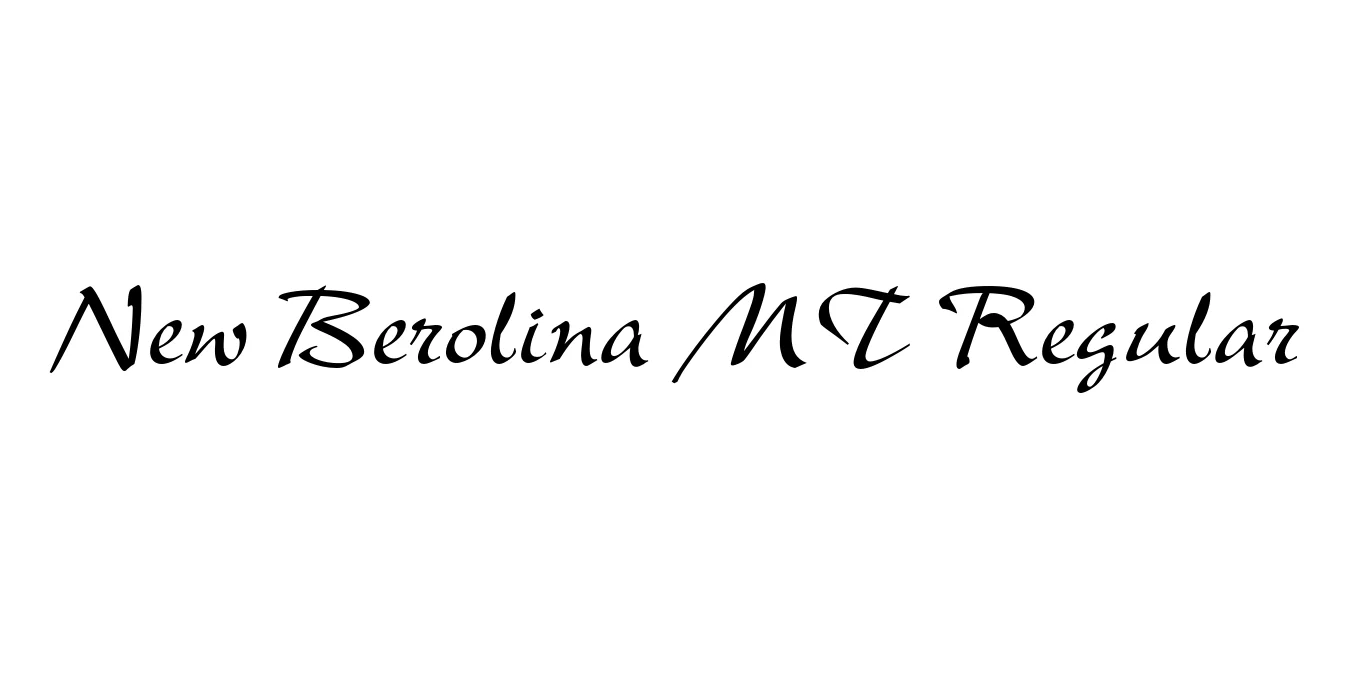
New Berolina MT Regular
Designed by Monotype Design Studio
| Category | Script / Calligraphic |
| Designer | Monotype Design Studio |
New Berolina MT Regular is an elegant calligraphic script typeface that embodies the fluid grace of manual handwriting. Originally developed by the Monotype Design Studio, this font features rhythmic, sweeping strokes and a sophisticated cursive structure that evokes a sense of timelessness and prestige. Its design balances the intricacy of traditional calligraphy with the clarity required for modern typesetting, making it a staple for high-end decorative work.
Throughout its history, New Berolina has been recognized for its ability to add a personalized, human touch to formal compositions. Unlike more rigid script fonts, its organic flow and moderate stroke contrast provide excellent legibility for a script face. It is most commonly associated with formal announcements, luxury branding, and celebratory materials where an atmosphere of refinement and classic beauty is desired.
New Berolina MT Regular Best Uses
Perfect for invitations, save-the-dates, and place cards due to its romantic and formal aesthetic.
Ideal for high-end luxury brands, boutique logos, and sophisticated packaging design.
Widely used for diplomas, awards, and formal recognition documents.
Excellent for decorative pull-quotes and chapter headings in lifestyle magazines.